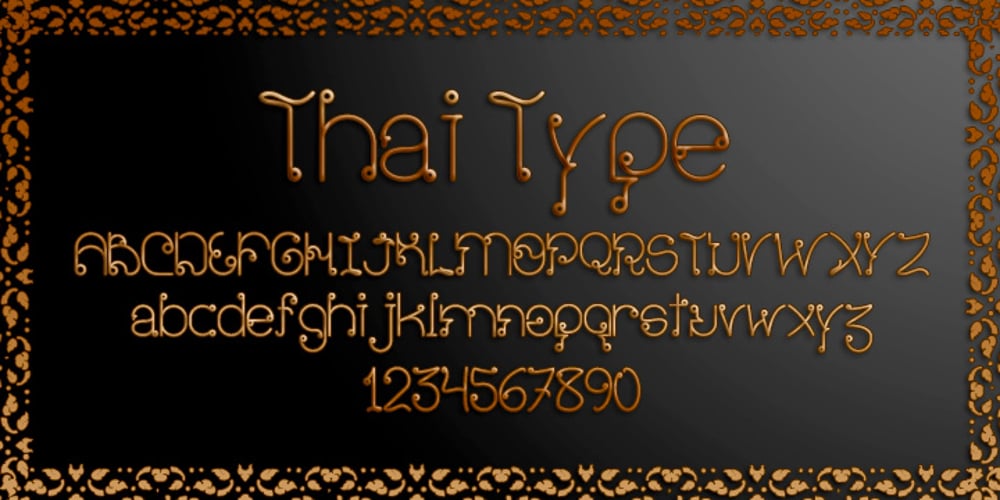
ThaiType Font Family was designed by Alexandre Venancio, Felippe Duque and published by Oporto Design. ThaiType contains 1 styles and family package options. Latin characters were turned into Tha-like types to create the ThaiType font.